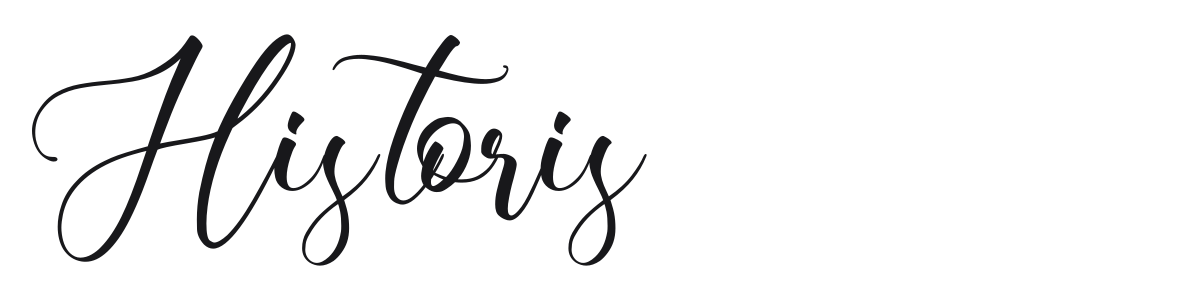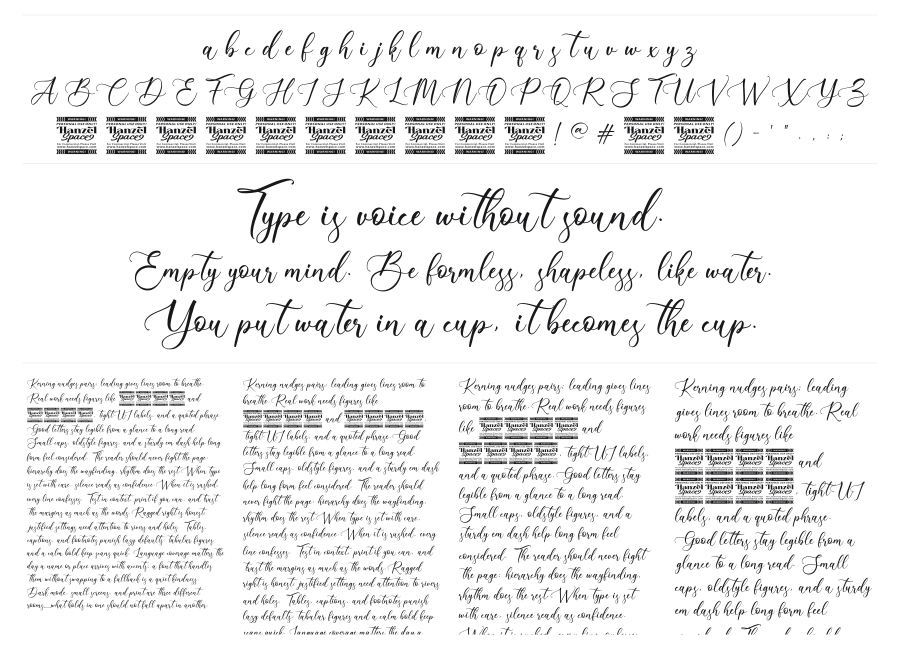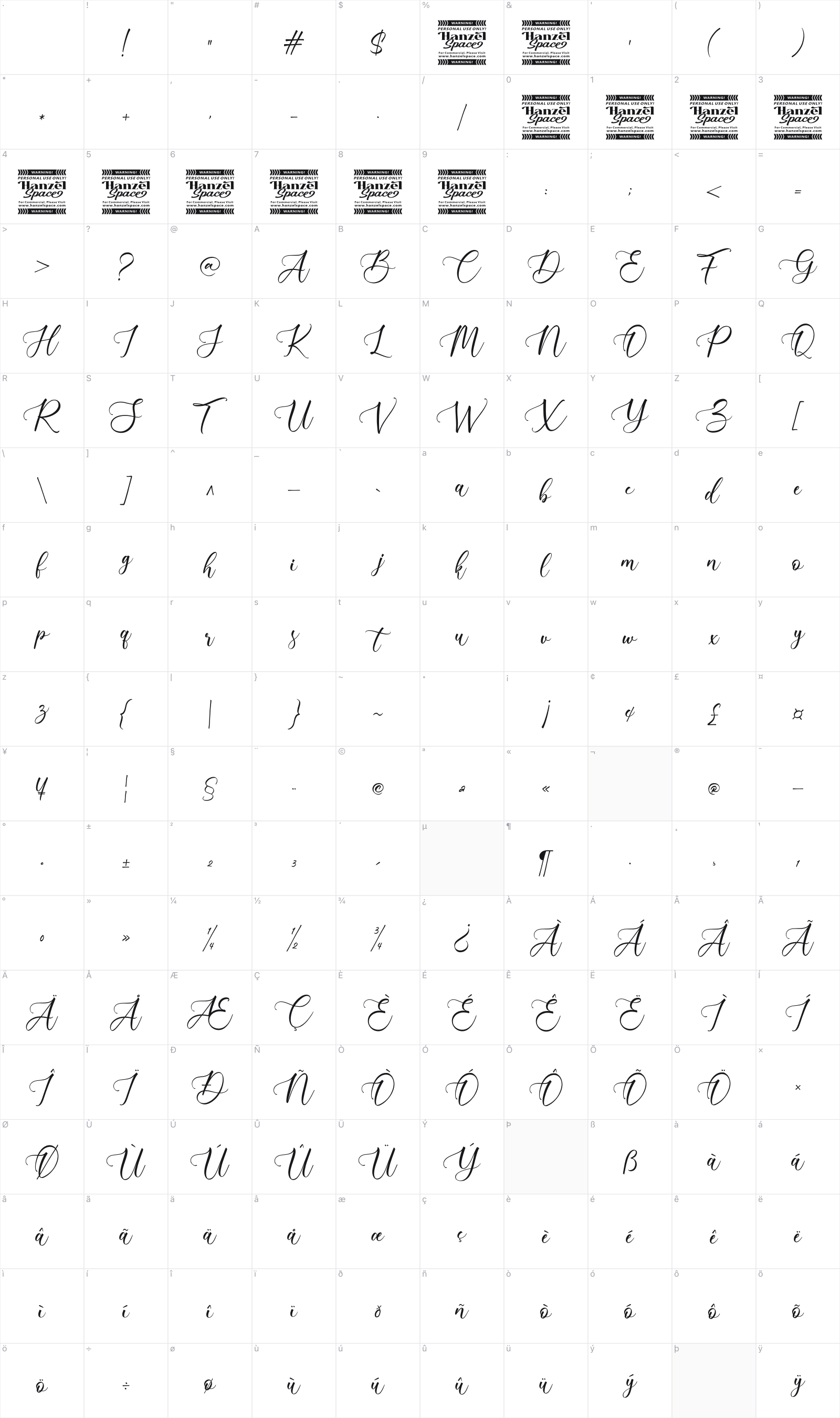
Historis
Historis is a modern handcrafted signature script with sweeping strokes and expressive calligraphic contrast. Thick downstrokes paired with delicate hairline transitions give it the feel of a premium ink pen in motion. It brings a warm, personal energy to branding, packaging, and editorial designs.